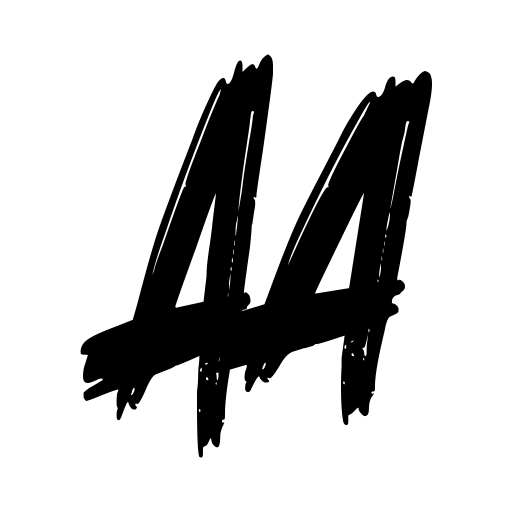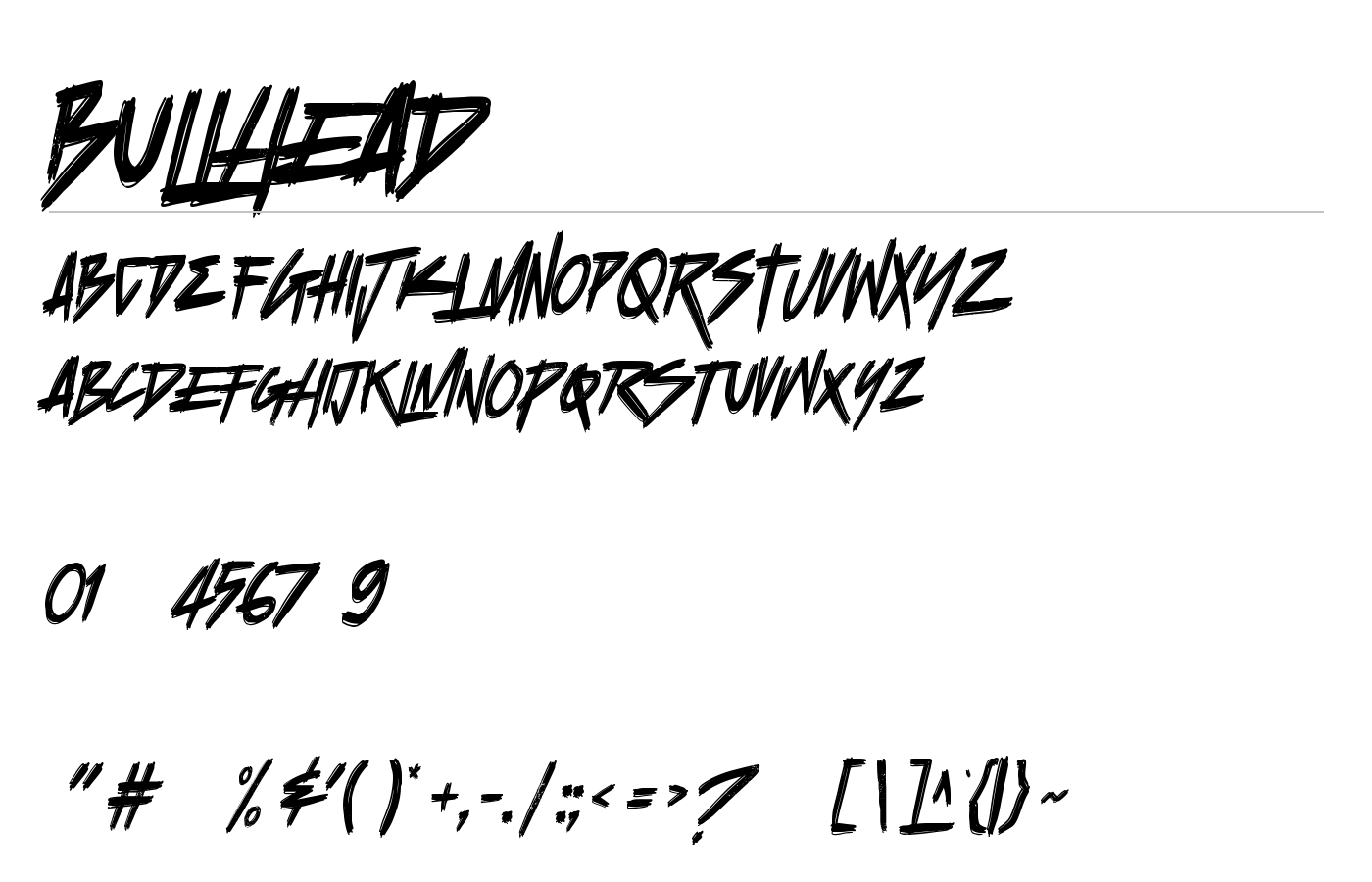
Bullhead is a bold, energetic handwritten font with a sharp, brushstroke texture that conveys a raw, edgy vibe. Its condensed, all-caps design with jagged lines and high contrast makes it perfect for eye-catching headlines, posters, and branding that seeks to express intensity and rebellious style. This font works well in creative and urban contexts where a dynamic, expressive personality is needed.
| Font family | Bullhead Font |
| Designer | Anang F & Malik Wsn | Gassstype© Studio 2021 |